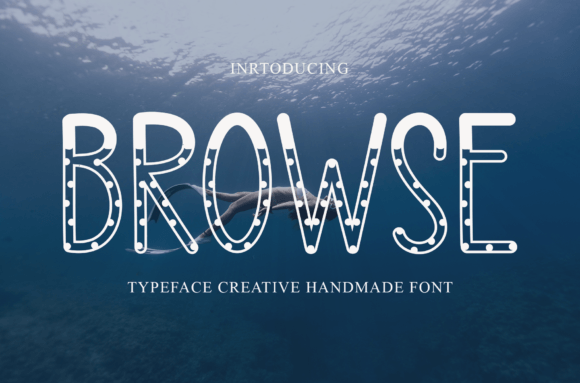
Introducing Browse Font, the ultimate choice for all your wedding design needs! Created by the talented William Jhordy, this sweet and friendly handwritten display font will add a touch of cuteness and fun to your special day.
With its charming and playful style, Browse Font is the perfect companion for crafting stunning wedding invitations, cards, and any other design that calls for a delightful touch. Its unique charm will captivate your audience and leave a lasting impression on your guests.
Searching for the best fonts to use for a wedding? Look no further! Browse Font is here to elevate your wedding stationery and bring your vision to life. Its handwritten aesthetic exudes warmth, evoking a sense of intimacy and personal connection that will resonate with your loved ones.
Imagine the joy on your guests' faces as they receive an invitation adorned with this captivating font. The whimsical curves and strokes of Browse Font will ignite excitement and anticipation, setting the tone for a truly memorable celebration.
But Browse Font isn't just limited to wedding-related designs. Its versatility extends to various projects where a fun and friendly vibe is desired. From logo designs to social media graphics, this font will infuse your creations with a delightful energy, making them stand out in a crowded digital world.
Choosing Browse Font means choosing originality and creativity. Its keyword-rich composition ensures that your designs will be easily discoverable by users searching for the best fonts to use for weddings. Don't settle for generic options when you can make a statement with Browse Font.